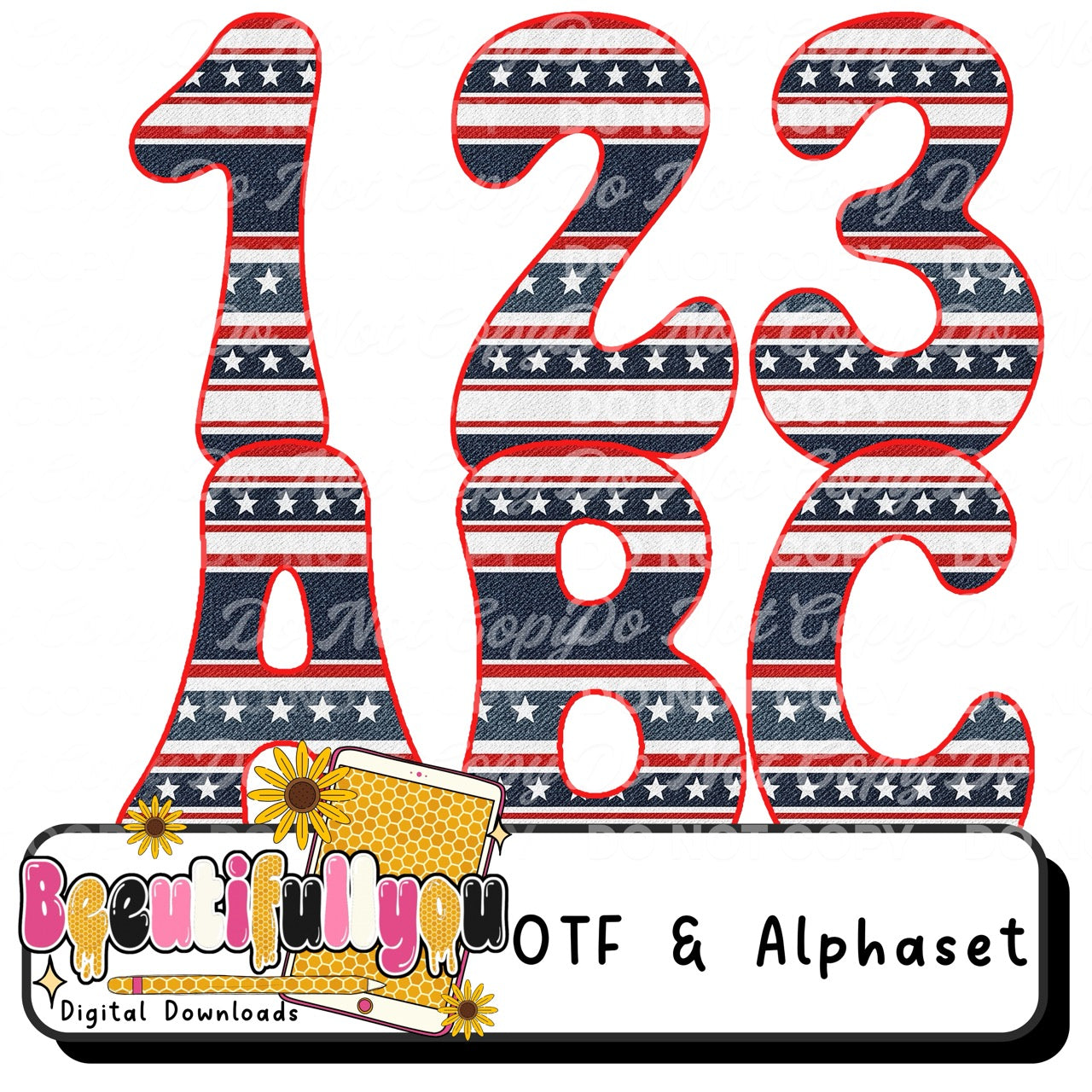
Patriotic Denim Font OTF + PNG Alphabet | USA Stars Stripes Font | 4th of July Bubble Letters | Red White Blue Alphabet
đşđ¸â¨ Bold, vintage patriotic font with a denim twist!
This red, white, and blue alphabet features a textured denim-style look with classic stars and stripesâperfect for creating standout 4th of July, Memorial Day, and all-American designs â¤ď¸đ¤đ
â Chunky rounded bubble lettering
â Denim-style patriotic texture